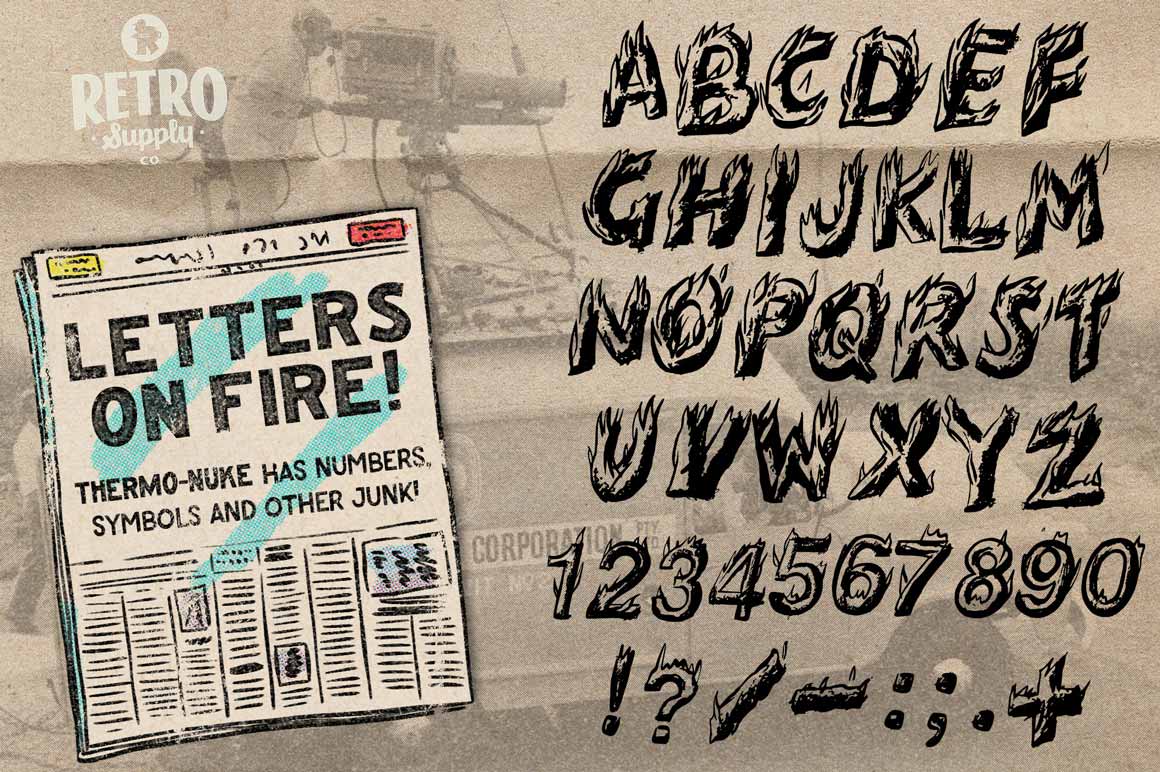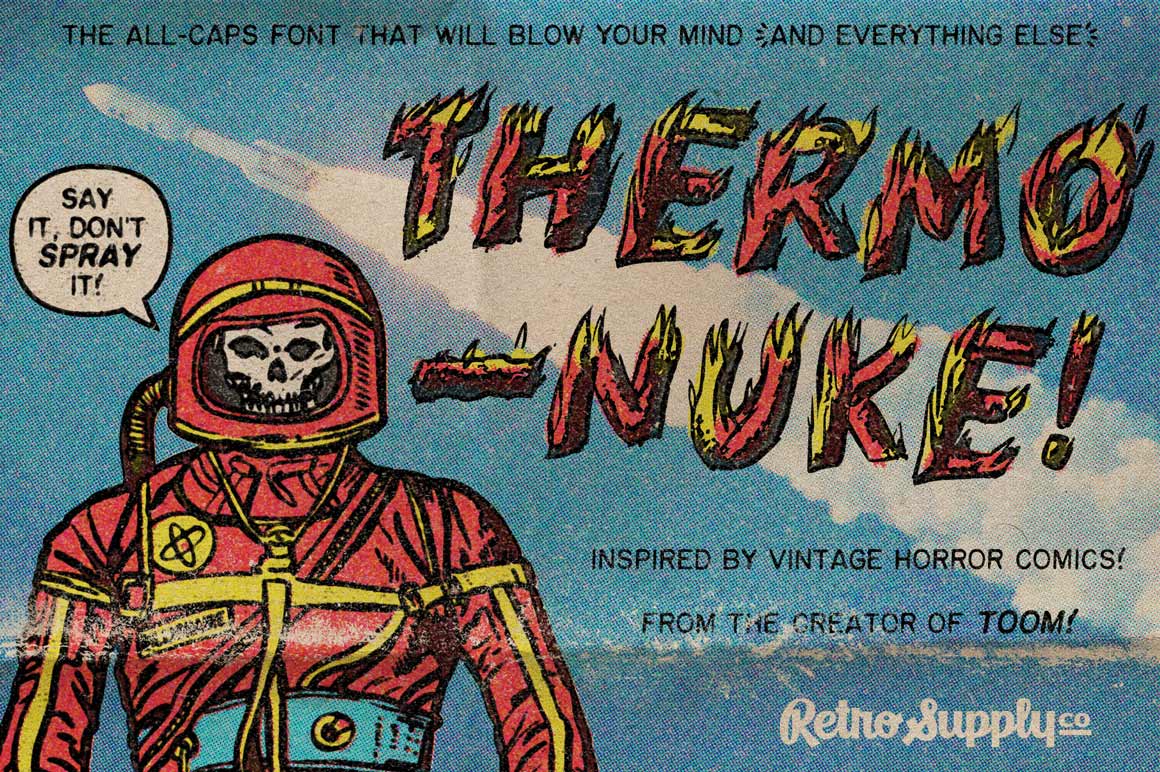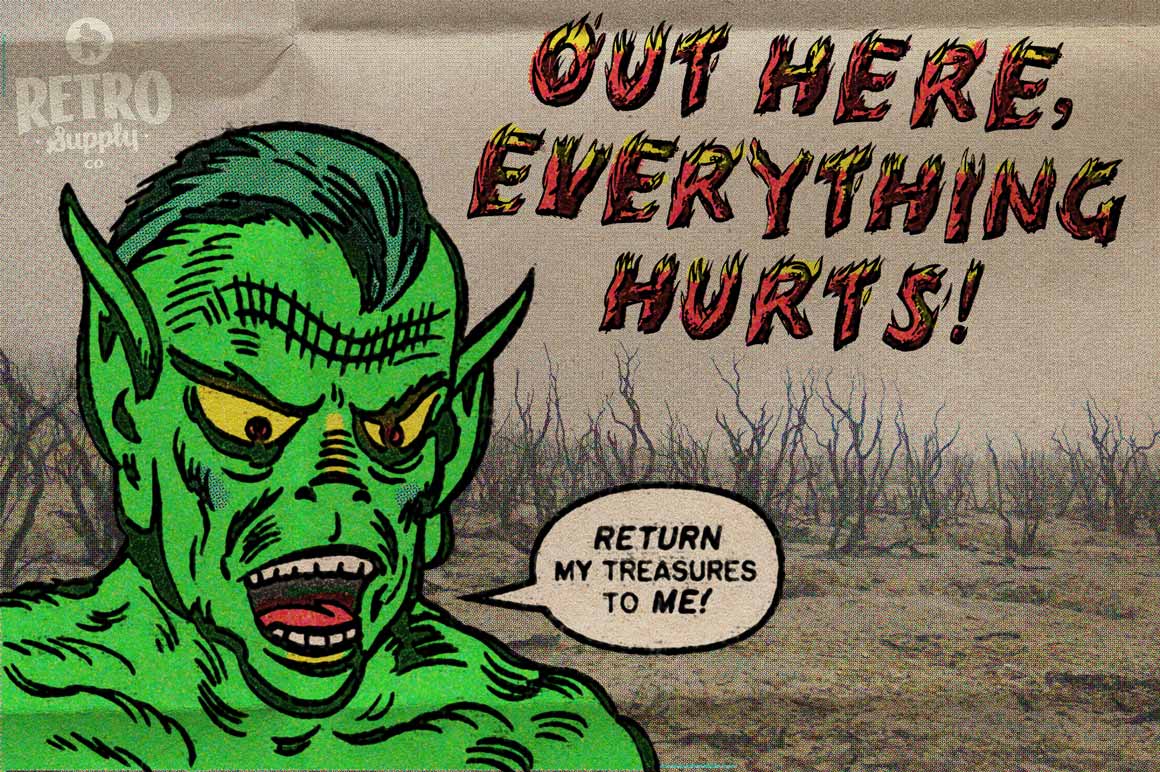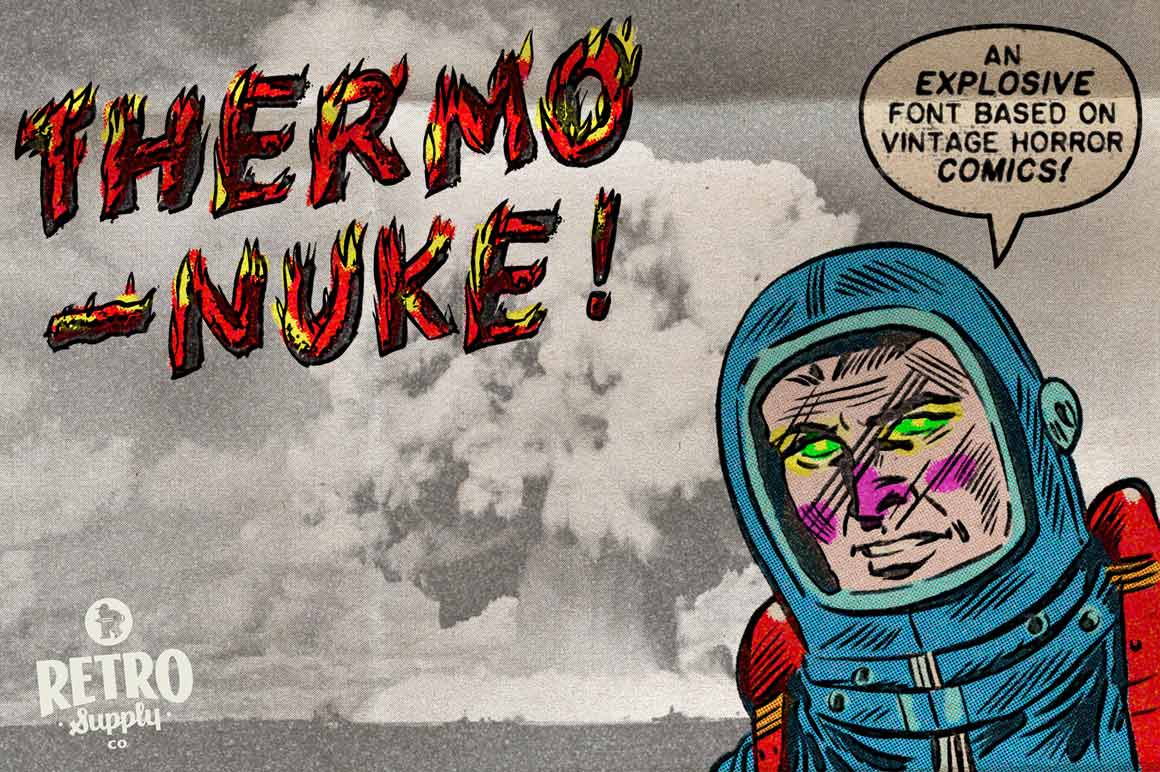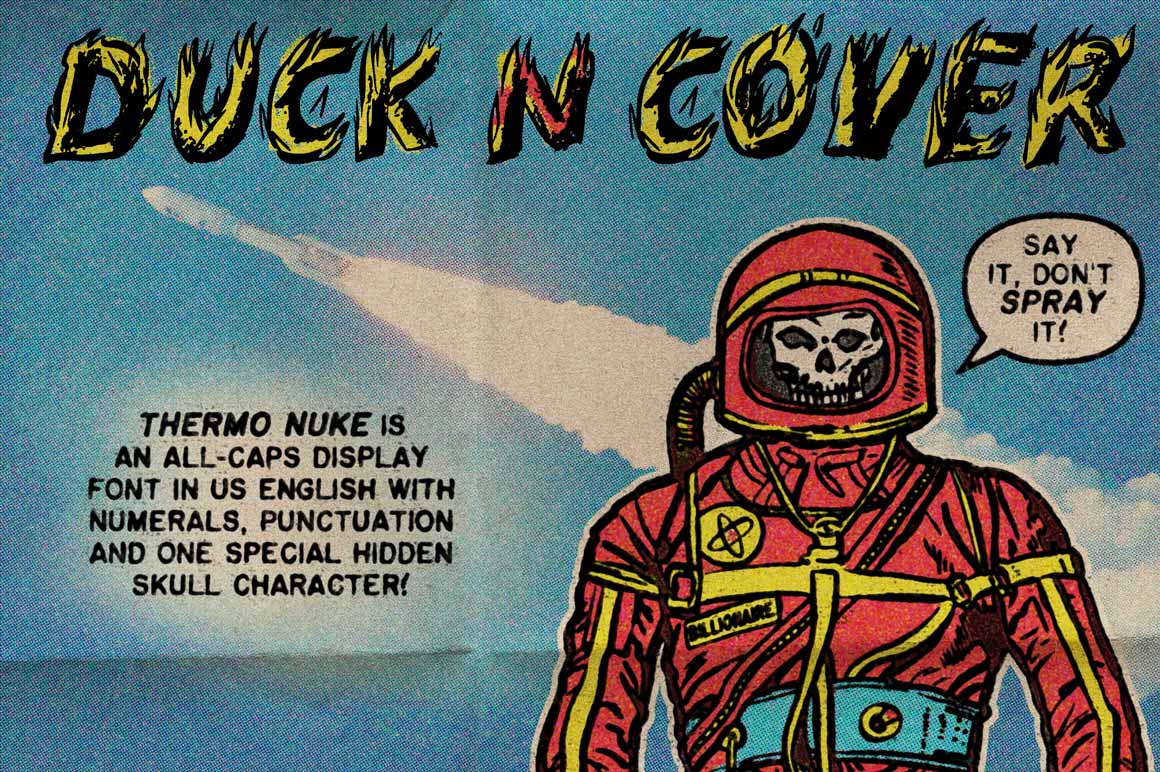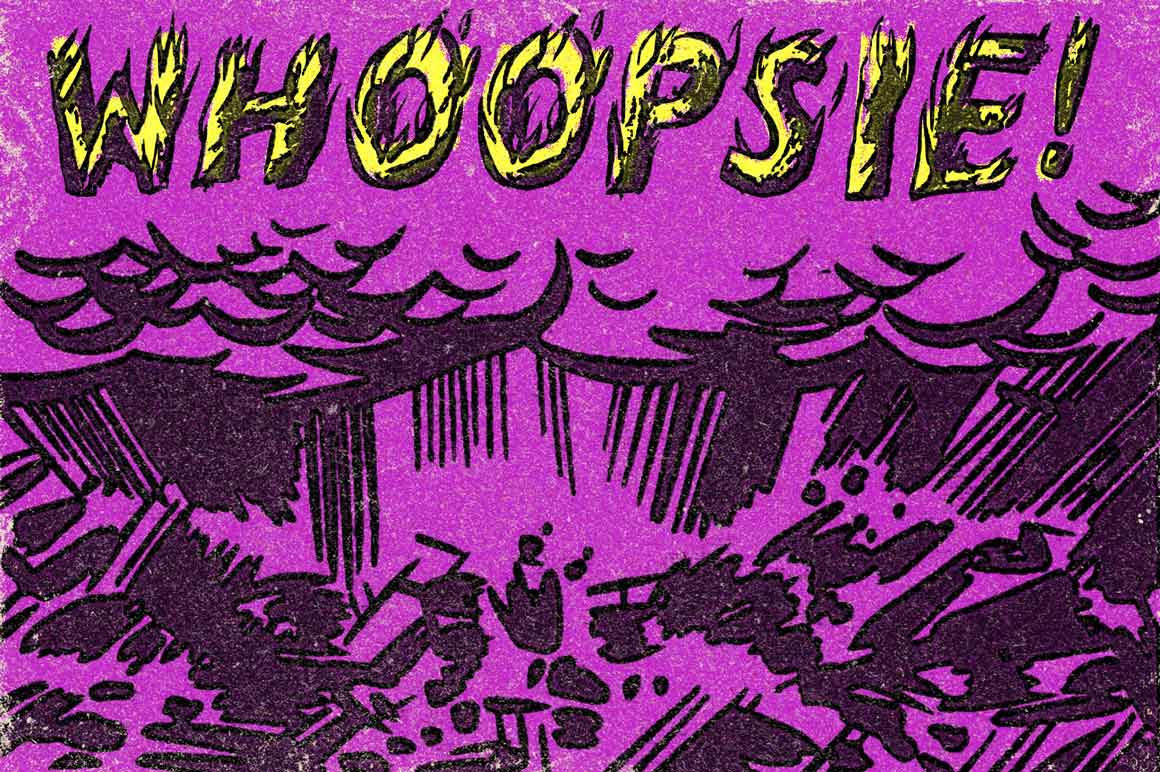
Thermo-Nuke
Introducing Thermo-Nuke, the all-caps font that will ignite your design projects like never before. Inspired by the classic horror comics of yesteryear, Thermo-Nuke is the brainchild of the same artist who brought you the infamous TOOM!
The bold, impactful nature of Thermo-Nuke is guaranteed to make a lasting impression.
Why we love Thermo-Nuke:
• All-caps display font (because flames can't be lowercase).
• Inspired by classic horror comics from the 20th century.
• Bold and impactful, guaranteed to make a lasting impression.
• Handmade feel pairs nicely with comics, zines, and other projects that need imperfection.
• Created by Christopher Sperandio, the same artist who brought you the infamous TOOM!
Whether you're looking to bring some existential dread to your audience or make a heartburn-inducing label for your homemade hot sauce — Thermo-Nuke is the perfect font for the job.
Unleash the beast in a blast of fire with Thermo-Nuke!